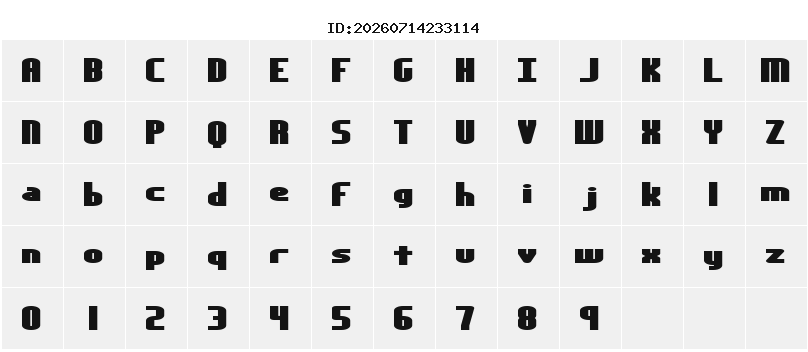
Yesterday (BRK) Preview
• Font Name: Yesterday (BRK)
• Full Font Name: Yesterday -BRK-
About Yesterday (BRK).ttf
Yesterday (BRK).ttf is a modern, elegant sans-serif font designed for ultimate readability and visual harmony. Perfect for branding, headlines, web design, and print materials.